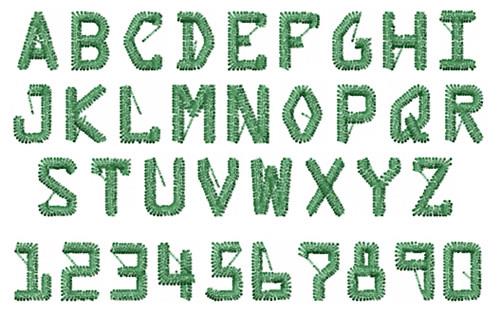
Midsouth is happy to present DATA CONTROL Embroidery Font - Bold Textured Style - PULSE machine embroidery font which has Bold, textured machine embroidery font showcasing the phrase 'DATA CONTROL' in a vibrant green hue, ideal for signage and branding on uniform patches and more. Available in PULSE format. included. If you would like to view more embroidery fonts and alphabets please search our embroidery fonts page.
DATA CONTROL Embroidery Font - Bold Textured Style - PULSE